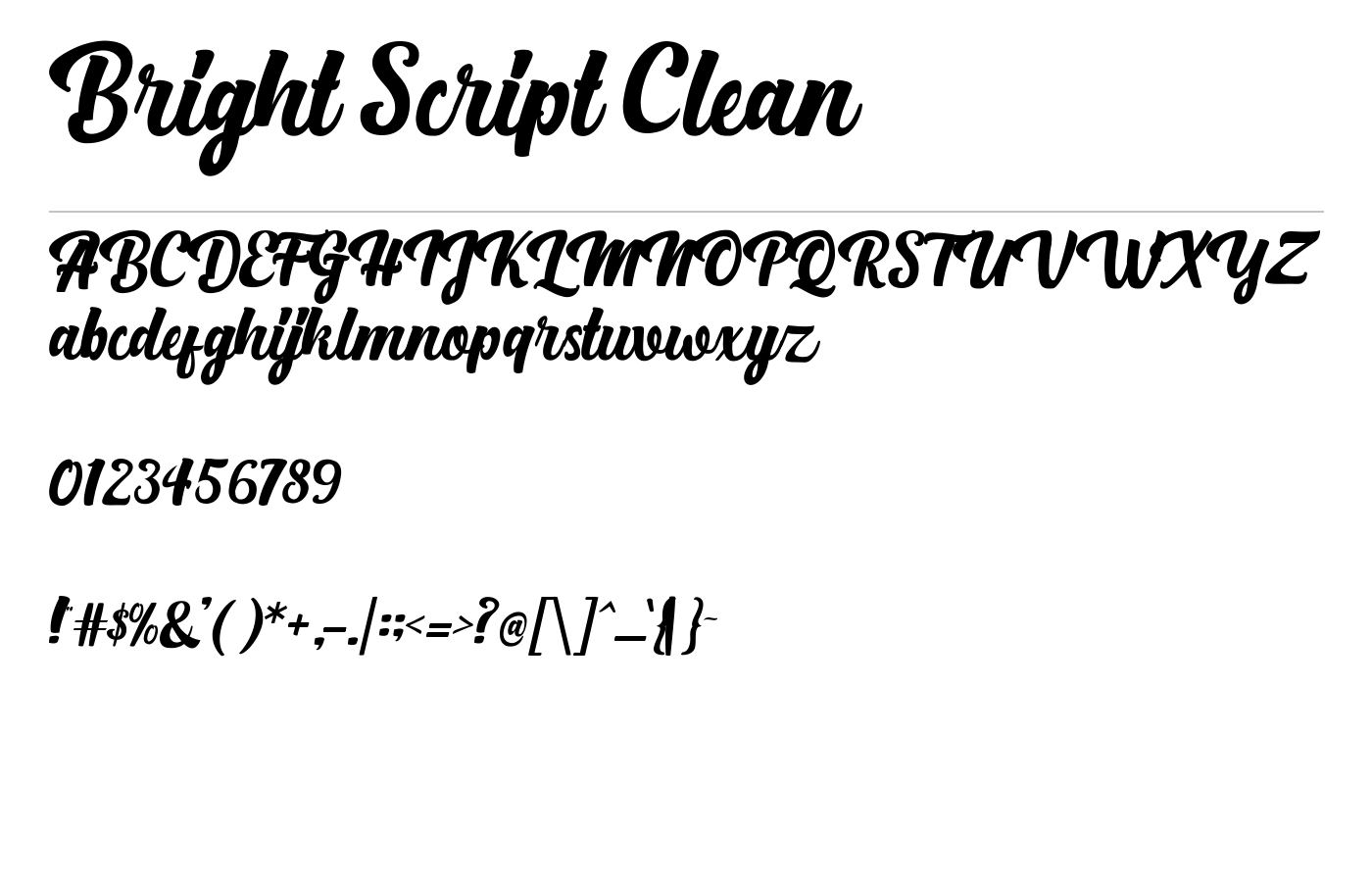
Bright Script Clean is a bold and lively script font characterized by smooth, flowing strokes and a playful yet elegant personality. Its well-balanced letterforms with moderate contrast and clean curves make it perfect for eye-catching headlines, branding, and creative projects that require a friendly and approachable style. This font works especially well in packaging, logos, and invitations where a strong, handwritten feel adds warmth and charm.
Bright Script Clean Font
About Bright Script Clean Font
| Font family | Bright Script Clean Font |
| Designer | Debut Studio |